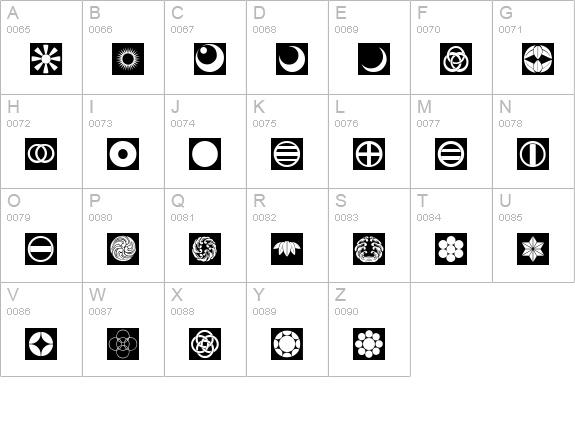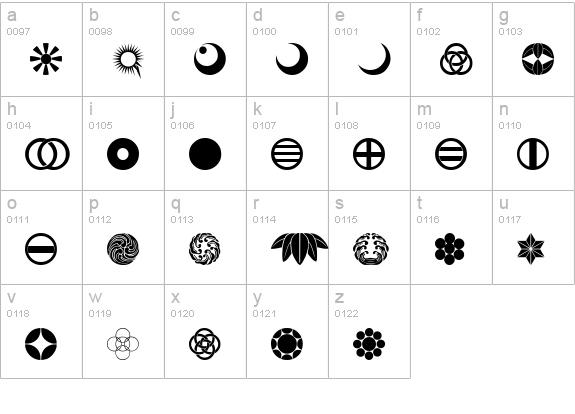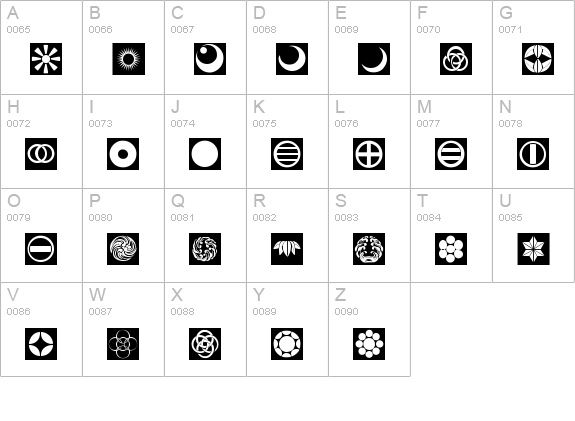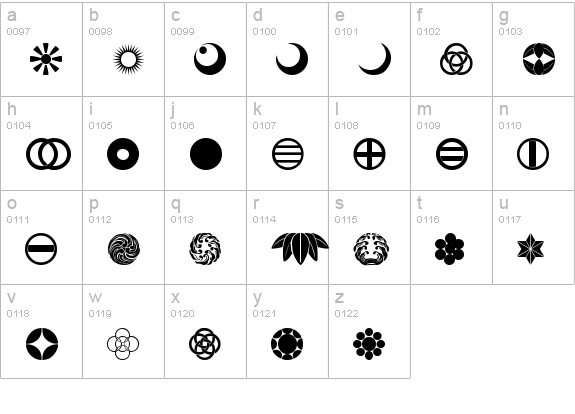
Oriental Icons IV Font Details
Oriental Icons IV font is a stunning display of artistic elegance and cultural richness. This exquisite font captures the essence of Oriental design with intricate details and ornate patterns. Each character is beautifully crafted to evoke a sense of tradition and sophistication. What sets Oriental Icons IV font apart is not only its captivating aesthetic appeal, but also its versatility. Whether you're creating a logo, poster, or branding materials, this font will add a touch of exotic charm to your designs. Best of all, Oriental Icons IV font is available for free download at FontsMarket.com. You can easily access this unique and enchanting font to enhance your creative projects. Embrace the beauty and mystique of the Orient with Oriental Icons IV font.